Prehistoric Planet font is used to create the Prehistoric Planet TV show logo. It is a five-part nature documentary series about dinosaurs that premiered on Apple TV+ on May 23, 2022. The series is produced by BBC Studios and narrated by Sir David Attenborough. It uses computer-generated imagery to recreate the life and environment of the Late Cretaceous period, 66 million years ago, just before the mass extinction of the dinosaurs. The series features various dinosaur species and other prehistoric animals, such as Tyrannosaurus rex, Triceratops, Deinocheirus, Mosasaurus, and Quetzalcoatlus.
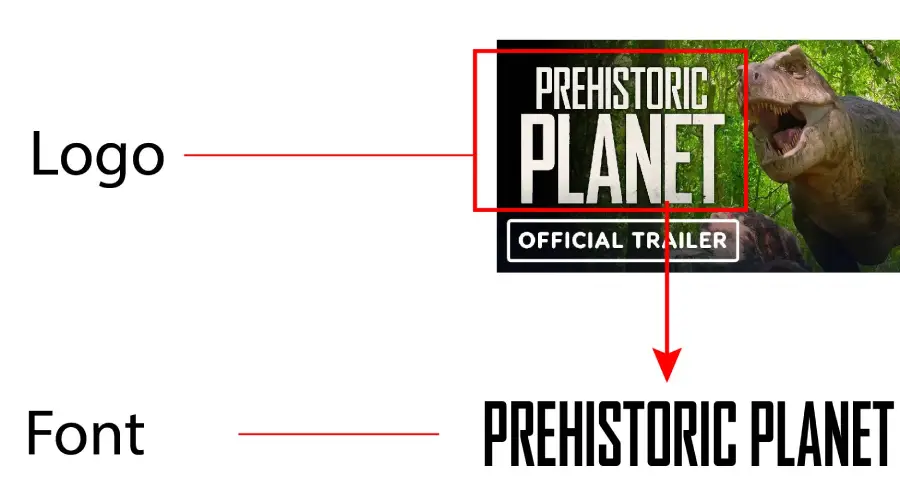
They used Agency FB Bold Condensed for the Prehistoric Planet logo. Agency FB Bold Condensed was designed by David Berlow and released by Font Bureau in 1990. It features a tall x-height and condensed letterforms to ensure clear readability, even at small sizes. This font is part of Agency FB font family. You can also check it out from our website.
Prehistoric Planet is a fantastic TV series that has entertained and educated millions of fans worldwide. The font used in it captures the essence and charm of the series, as well as the science and realism of the prehistoric world. The font is versatile and attractive and can be used for various purposes and occasions.